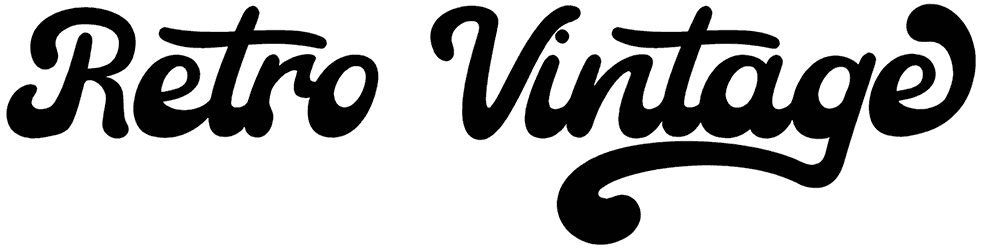
Montella Font
Check out Montella, a bold, flowy retro font that brings a vintage feel to your work. It will capture everyone’s attention with ease and make a true classical masterpiece. You can use this fabulous baseball font for creating book covers, T-shirt prints, advertising banners, logotypes, food box designs, and any other design.